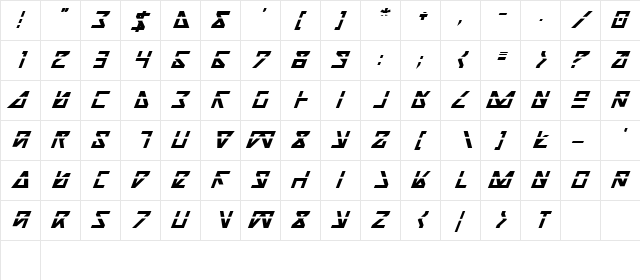
Nick Turbo Bold Italic Las Bold Italic Las
Design Context for Nick Turbo Bold Italic Las Typeface
Nick Turbo Bold Italic Las is a composed and adaptable typeface that performs quietly and consistently across a wide range of design contexts. Its italic angle brings a sense of urgency and motion to the letterforms. The heavy weight commands attention and anchors typographic hierarchies.
Pro Tip: Use Nick Turbo Bold Italic Las for emphasis, pull quotes, and subheadings where its slanted energy can add rhythm to the layout.